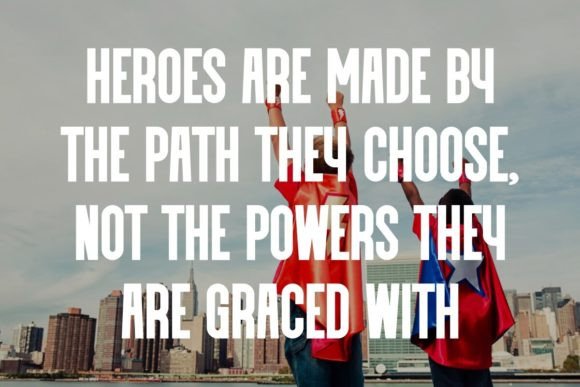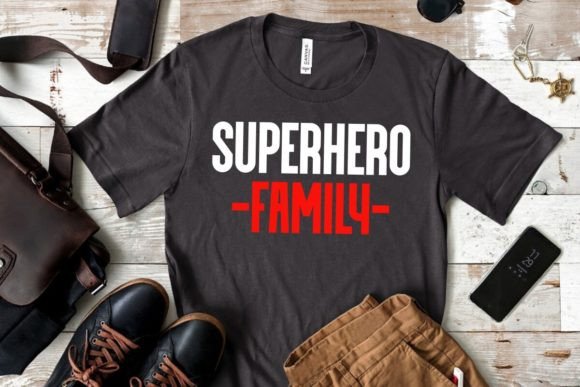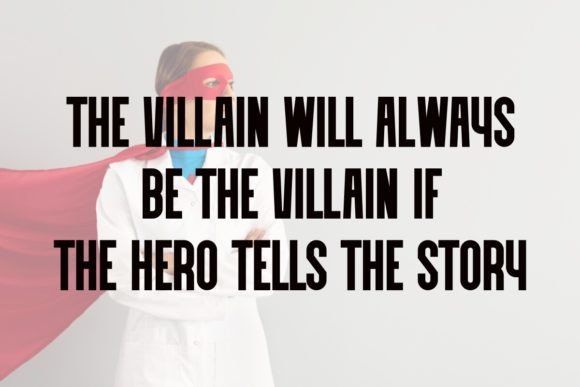
Introduction to Heroes Patriotic Font
As a designer, have you ever been working on a project and suddenly felt the need to convey a sense of heroism and pride? You search for the perfect font to capture the essence of your message, and then it hits you – the moment of inspiration. The perfect font is found, and everything falls into place. This is exactly what happens when you discover the Heroes Patriotic Font, a bold and clean sans serif font that exudes strength and power.
With its modern aesthetic and strong presence, the Heroes Patriotic Font is a game-changer for designers looking to create high-quality, impactful designs. Whether you’re working on a poster, background, headline, or quote, this font is sure to elevate your creative project to the next level. And the best part? It’s available for free download, making it an invaluable resource for designers of all levels.
- High-quality design resource perfect for creative projects and patriotic themes.
- Features a transparent background, allowing for easy integration into various design elements.
- Designed at 300 DPI, ensuring crisp and clear display on high-resolution screens and prints.
- Perfect for use in graphic design, digital art, and other creative projects that require a patriotic touch.
- Unique characteristics include bold, eye-catching lettering and intricate details, making it a standout design resource.
I recently stumbled upon the Heroes Patriotic Font while searching for a design resource to give my creative project a boost. As a designer, I was excited to see what this font had to offer.
- ✨ High quality design: The font is well-designed and has a clear, bold aesthetic that’s perfect for patriotic themes.
- ✨ Transparent background: The font’s transparent background makes it easy to use in conjunction with other design elements.
- ⚠️ Limited customization options: The font is quite bold and doesn’t offer a lot of flexibility in terms of customization.
- ⚠️ Limited font sizes: The font seems to be best suited for larger font sizes, and it may not be the best choice for smaller text.
Overall, I’m impressed with the Heroes Patriotic Font, and I think it’s a great addition to any designer’s toolkit. While it may have some limitations, it’s a high-quality design resource that’s perfect for patriotic-themed projects.
The Heroes Patriotic Font is a high-quality design resource that can elevate your creative project with its bold and patriotic feel. It features a transparent background, making it easy to integrate into various design applications.
– Use the font to create stunning graphics and designs for social media, posters, and more.
– Add the font to your designs and take advantage of its high-quality features.
– Use the font to create engaging presentations and documents.
To get the most out of the Heroes Patriotic Font, try using it in combination with other design elements, such as bold graphics and patriotic colors.
The Heroes Patriotic Font is perfect for:
- Creating patriotic designs for Independence Day or Memorial Day.
- Designing graphics for military-themed projects.
- Adding a bold, patriotic feel to your brand’s visual identity.